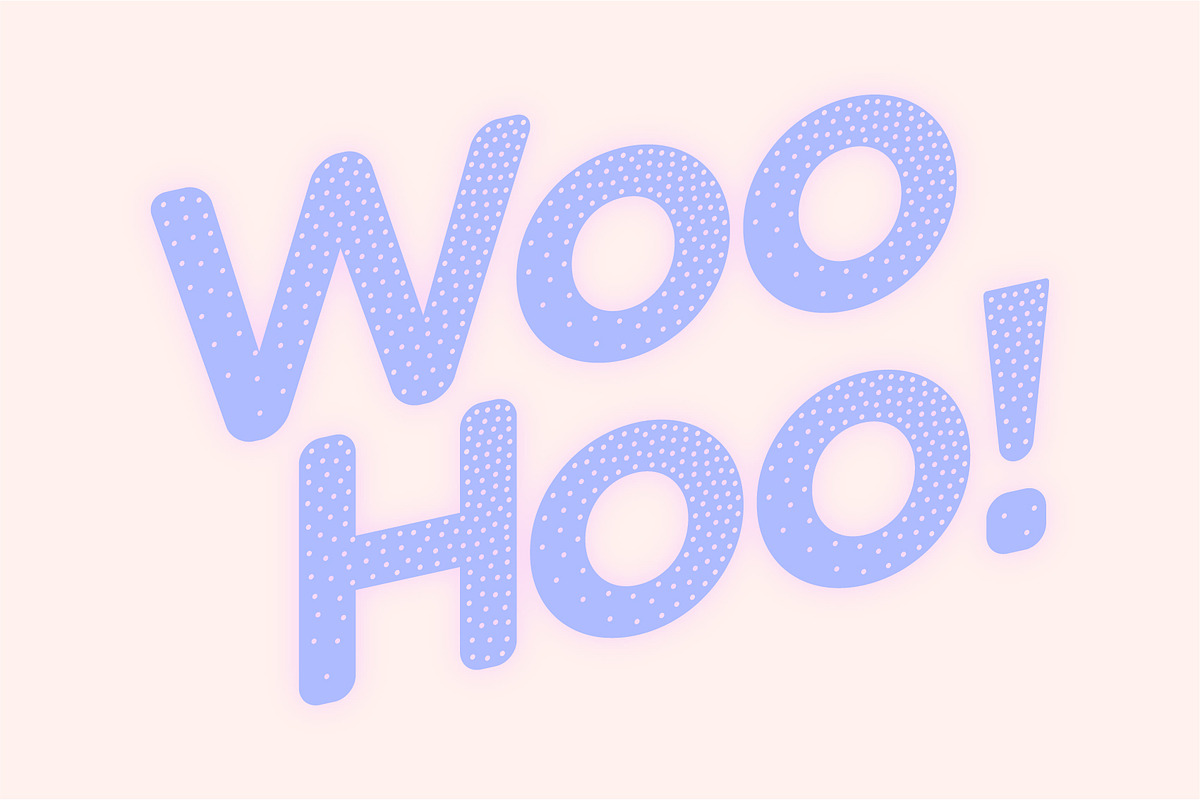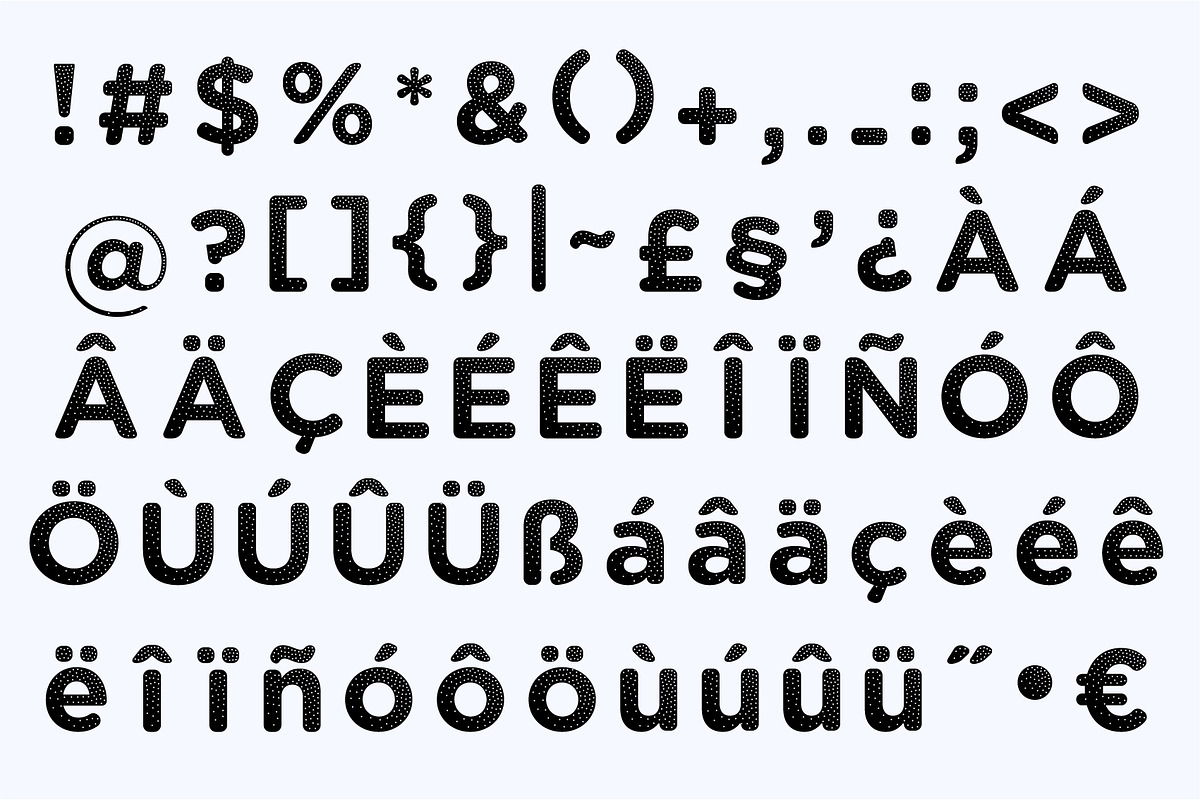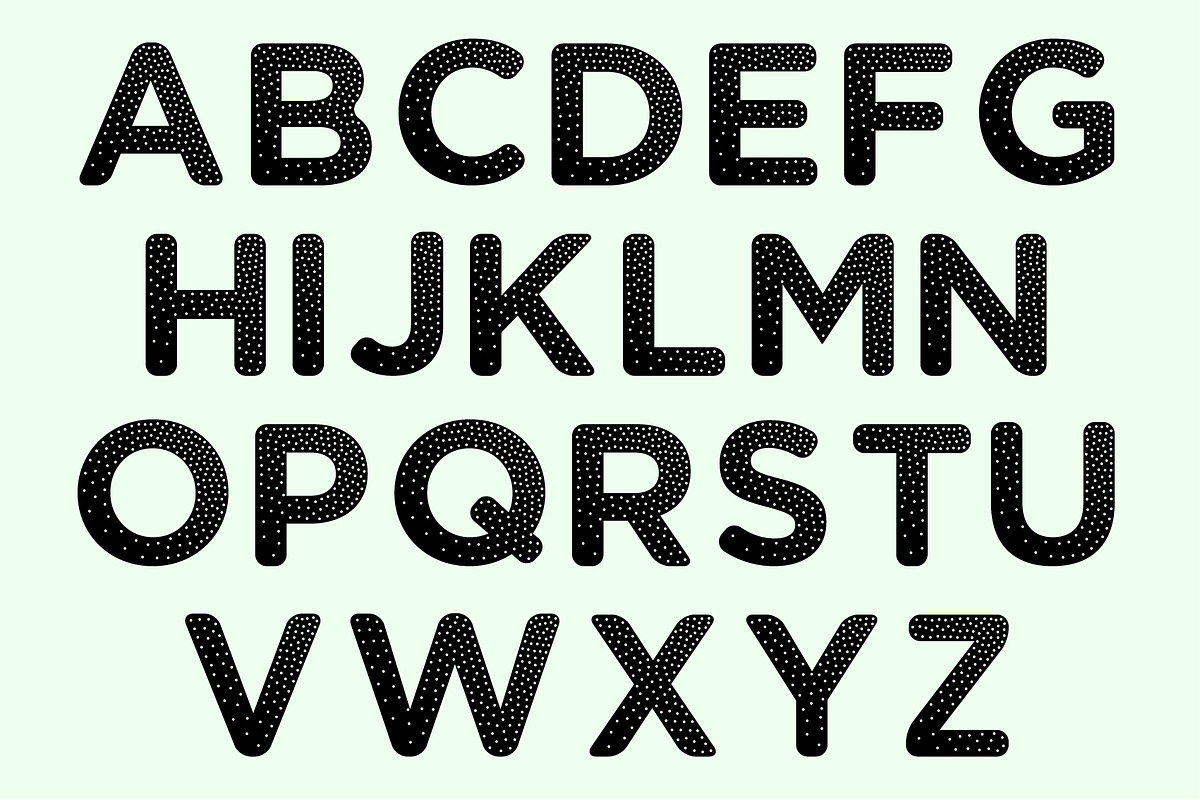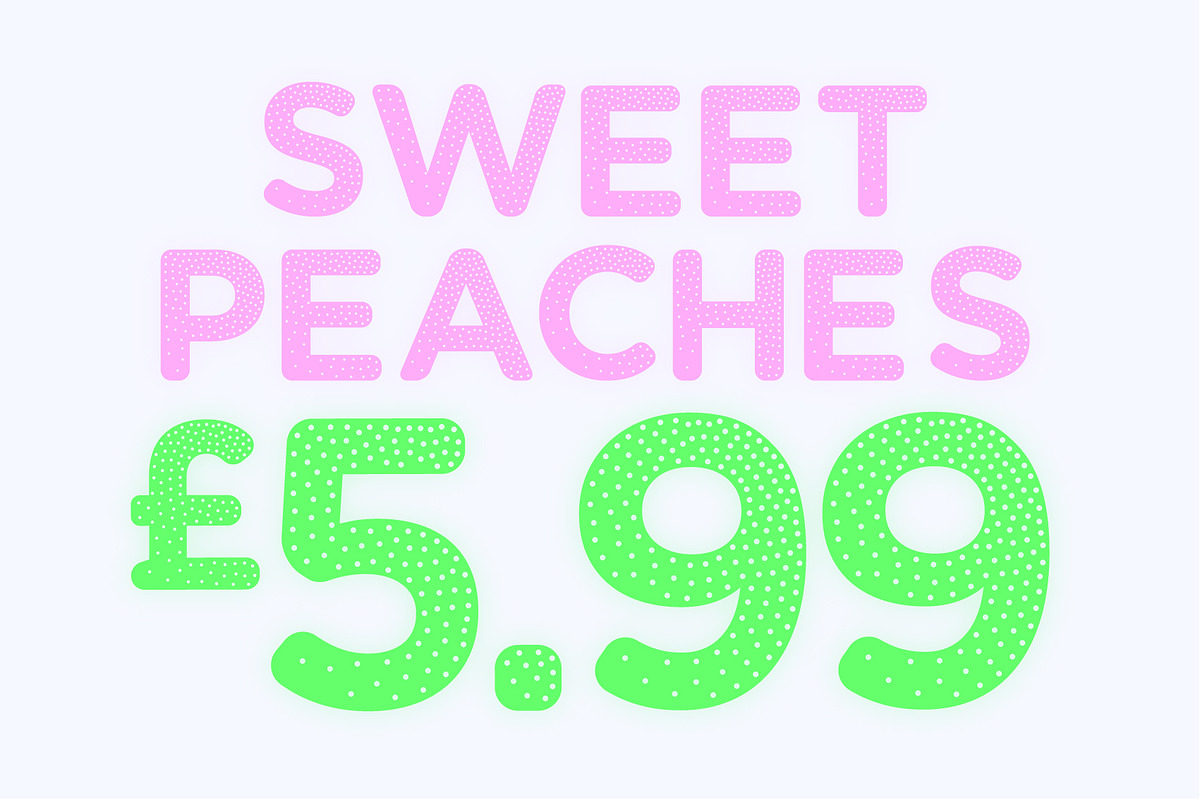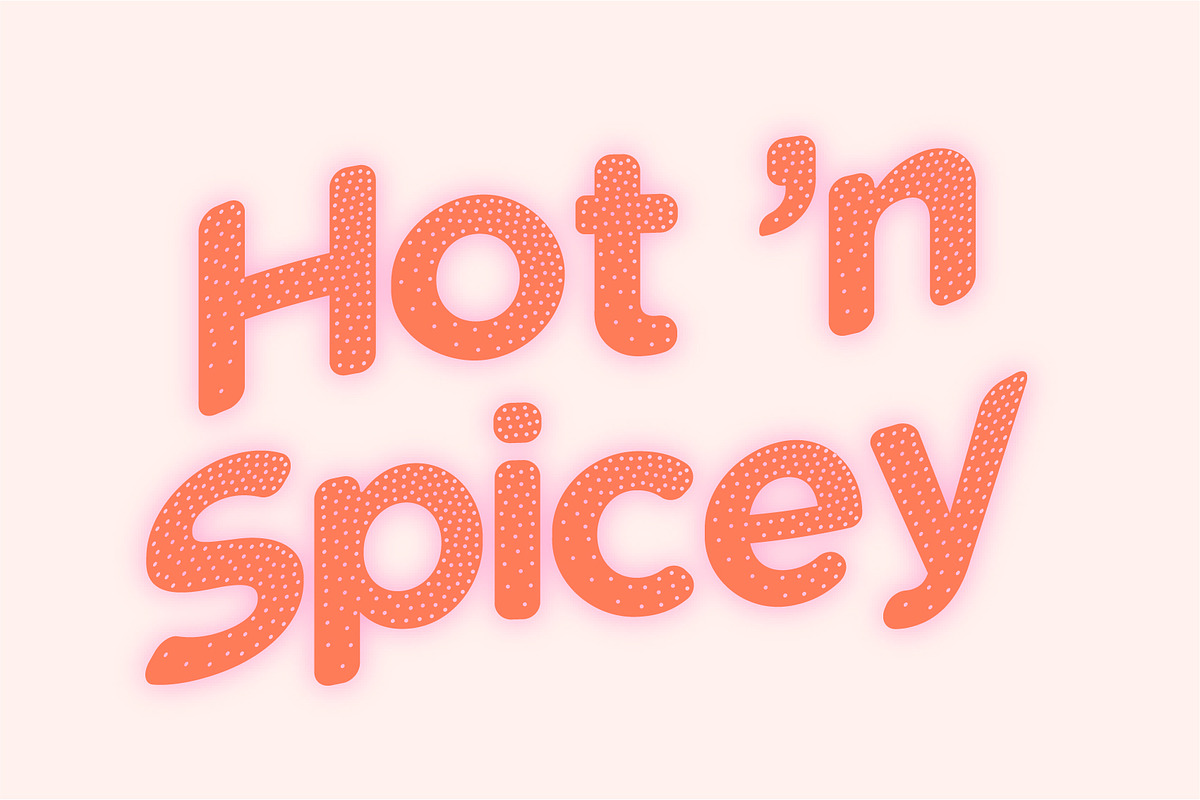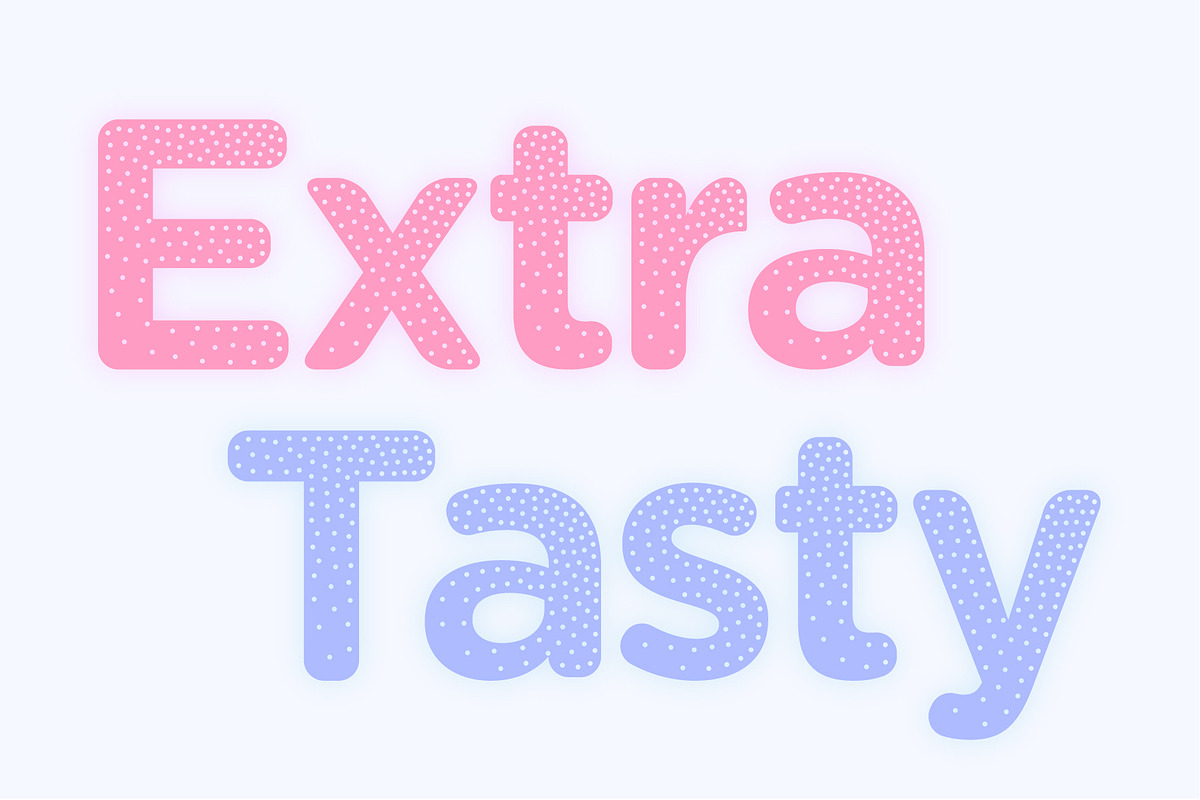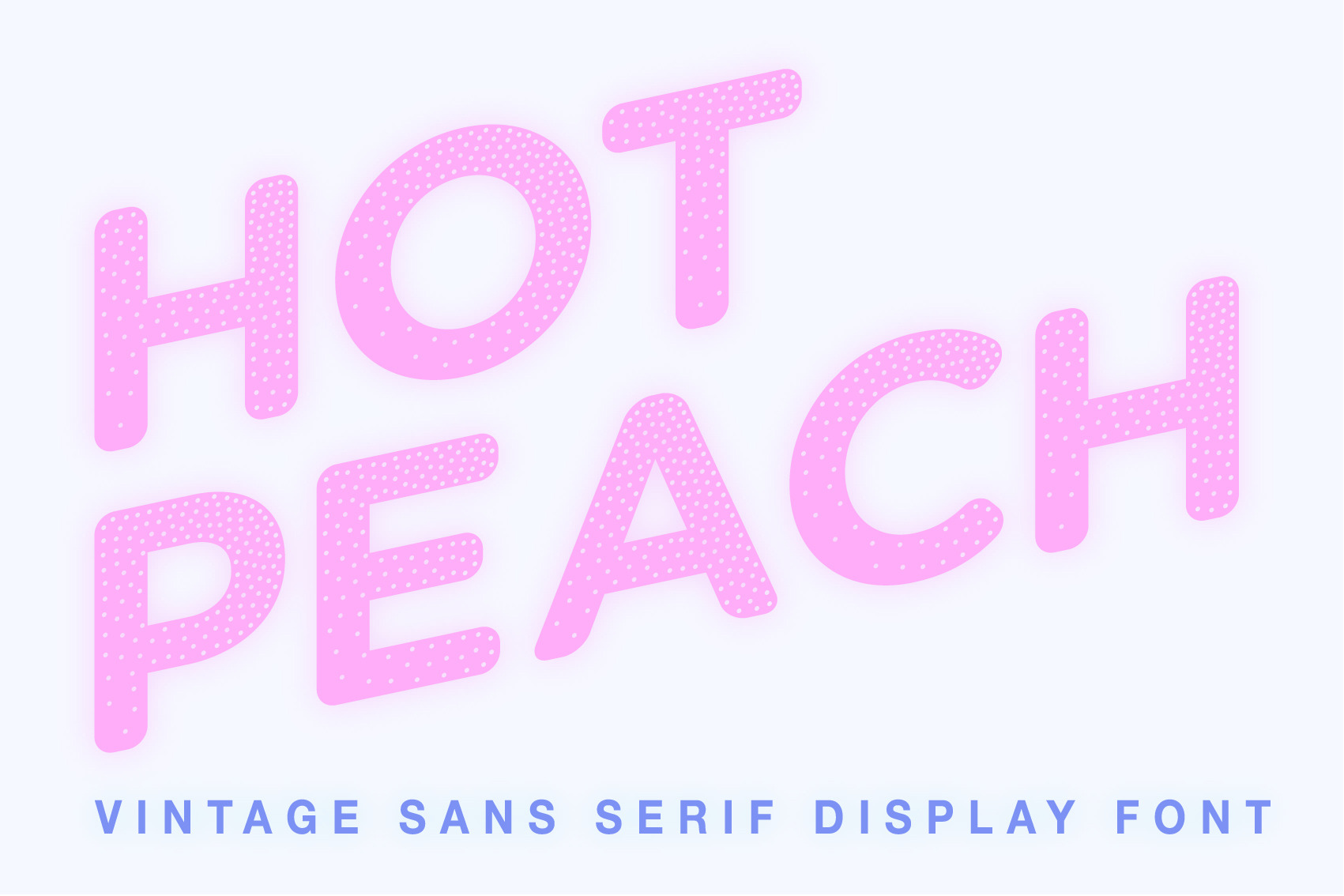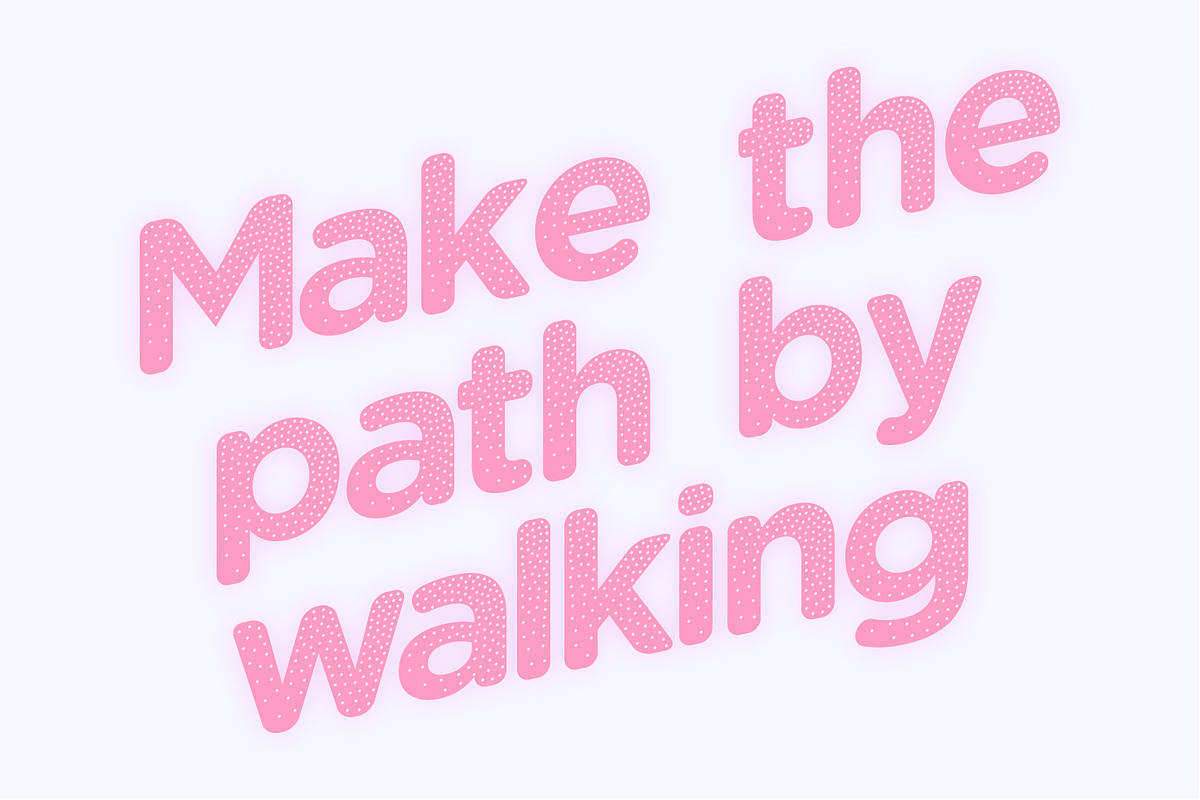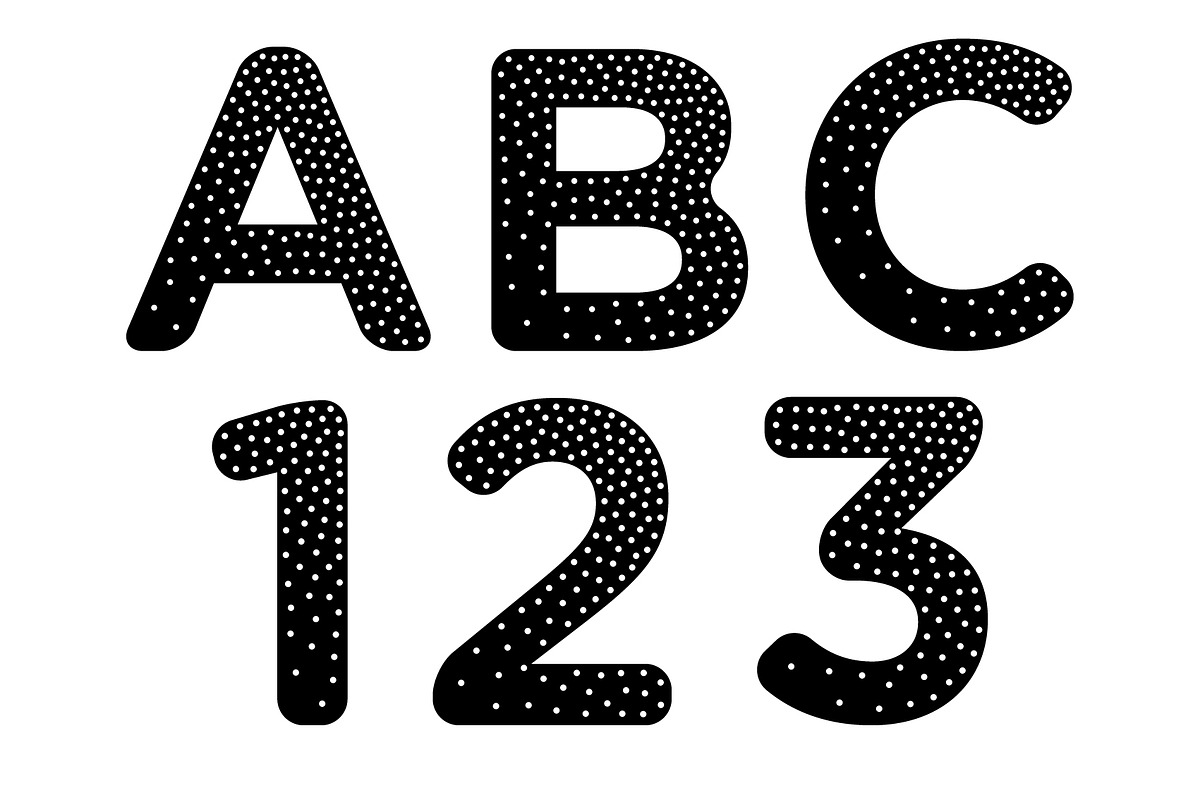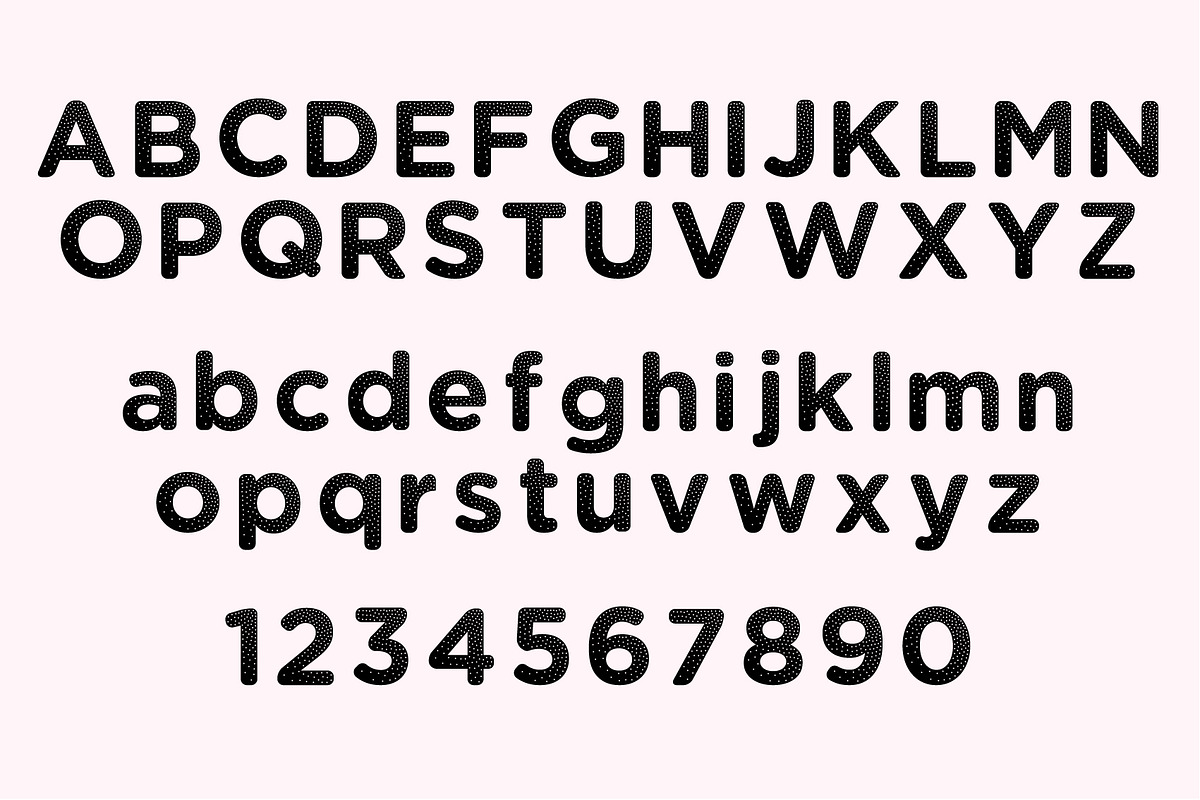
Hot Peach - Sans Serif Display Font
Hot Peach is 1970-1980's inspired decorative sans serif display typeface that just really wants to be shown off at large scale so that we can see the detail.
The typeface includes upper and lowercase glyphs with balanced curves and halftone paths. It works perfectly for bold headlines, logos, posters, packaging, T-shirts, postcards and more.